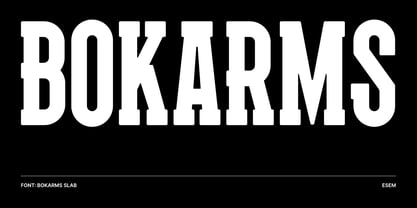
Bokarms Slab
by ESEM Type
The Bokarms Slab Font Family was designed by Szymon Mandziarz and published by ESEM Type. Bokarms Slab contains 1 styles.
Bokarms slab is a condensed font with a distinct look. Created for the design of martial arts clubs and boxing galas.
Perfect for promotional projects of all sports disciplines, giving an academic character.
It will also work as a universal typeface for promotional poster designs, branding, logo design, and clothing branding.
Designers: Szymon Mandziarz
Publisher: ESEM Type
Foundry: ESEM Type
Design Owner: ESEM Type
About ESEM Type
An independent font foundry that was created out of passion for typography and creative needs. The founder and author is Szymon Mandziarz. The beginnings of letter design began many years ago with graffiti. The foundry focuses on the production of modern, unique typefaces with a clear form and details that attract attention. The font foundry aims at providing its customers with high quality fonts that stand out with their original style.